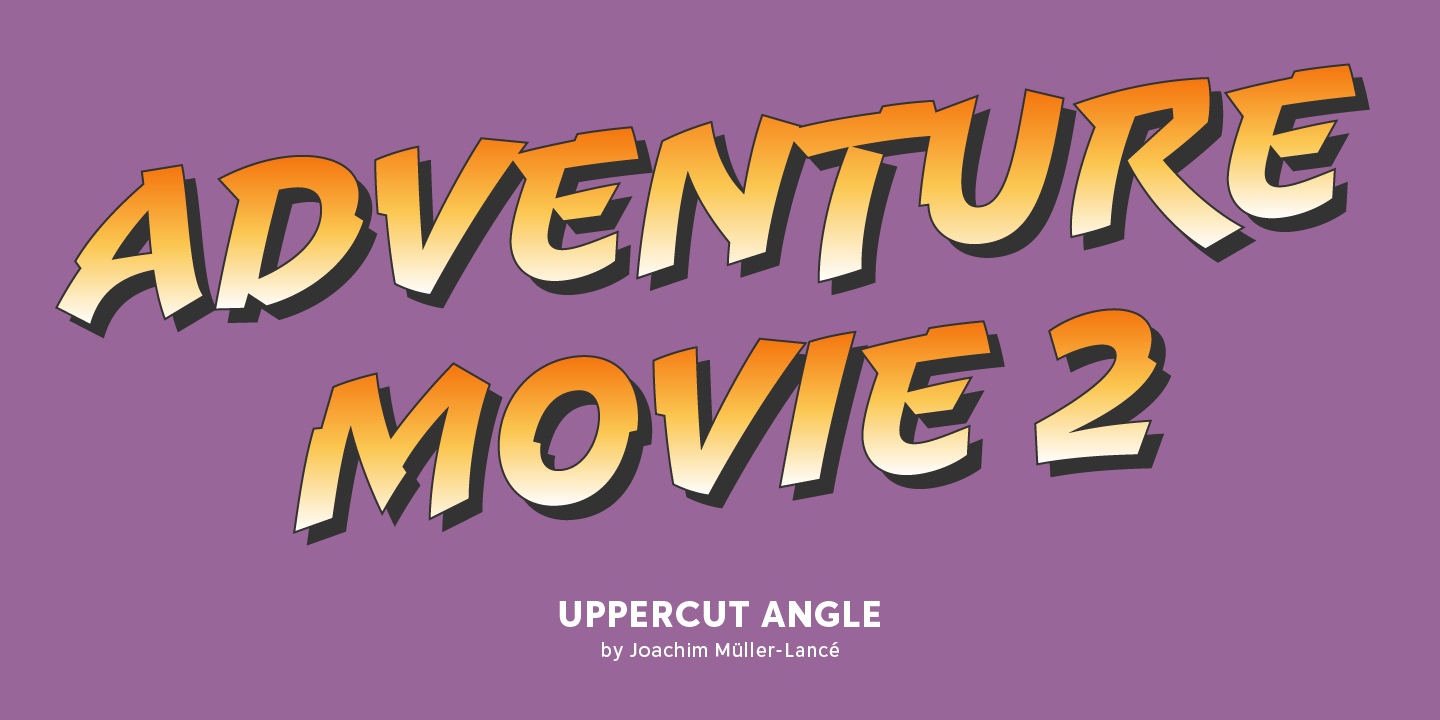
Uppercut Angle Font
Uppercut Angle Font is a dynamic and aggressive display typeface, perfect for designs that demand attention and energy. Its sharp, angled cuts and bold structure make it an excellent choice for sports branding, gaming logos, and high-impact headlines. The font’s powerful and modern aesthetic is also ideal for album art, movie posters, and tech-related advertisements where a sense of speed and action is needed. Whether you're designing for a fitness brand or a racing event, Uppercut Angle Font delivers a message with undeniable force.
The most exciting aspect of Uppercut Angle Font is its unique and edgy character, which sets it apart from more traditional typefaces. The font’s distinctive angles and geometric precision create a feeling of movement and forward momentum. This makes it incredibly effective for designs that need to convey strength, speed, and modernity. It’s a typeface that doesn’t shy away from being bold and memorable, making it a favorite for designers who want to create a powerful visual identity.
The Uppercut Angle Font family is designed to provide maximum impact and versatility. The family typically includes a Regular weight, as well as a Bold weight and an Italic version. These variations allow you to create a strong visual hierarchy and add further dynamism to your designs. For instance, you can use the Bold weight for your main title to grab attention, while the Regular weight can be used for subheadings to maintain a consistent, high-energy look.